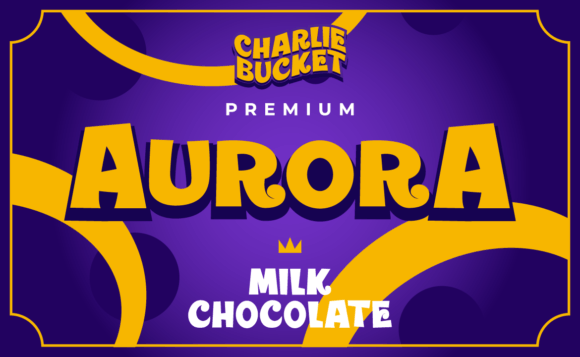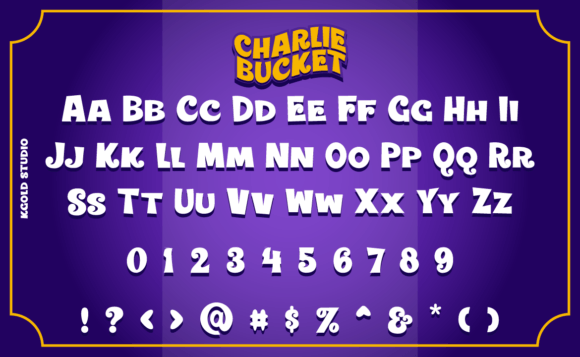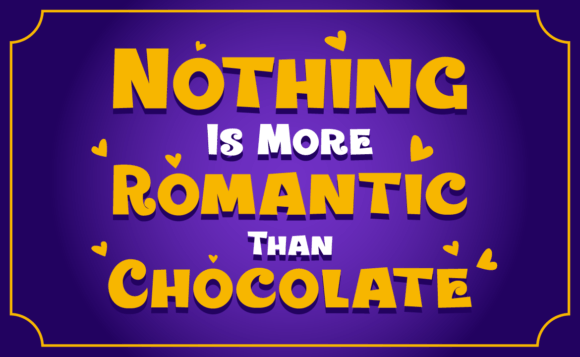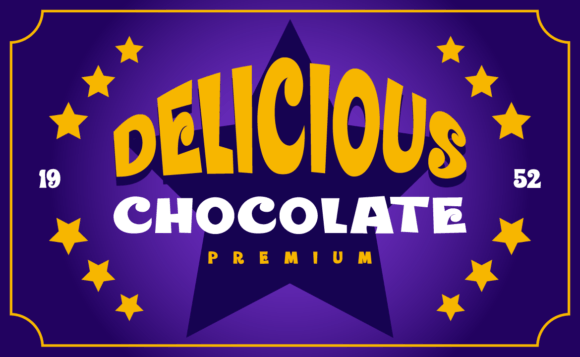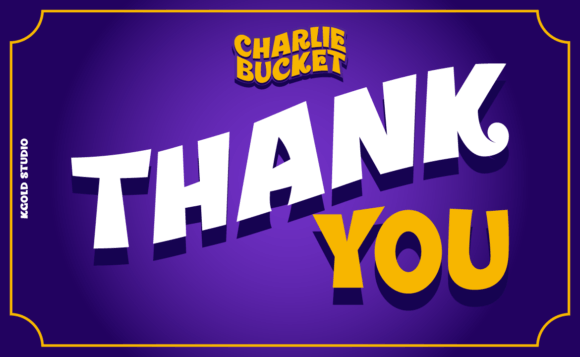
Introducing Charlie Bucket Font: The Playful and Fun Display Font
Are you tired of using the same old fonts in your designs? Look no further! Charlie Bucket Font is a playful and fun display font that is sure to brighten up each of your creations. With its friendly and cute style, this font is suitable for a wide variety of designs, making it a must-have for designers and crafters alike.
What Makes Charlie Bucket Font Special?
Charlie Bucket Font is a unique and charming font that stands out from the rest. Its playful and fun style is perfect for designs that require a touch of whimsy and personality. The font’s friendly and cute aesthetic makes it suitable for a wide range of projects, from children’s books and educational materials to branding and advertising.
Key Features of Charlie Bucket Font
• Playful and Fun Style: Charlie Bucket Font has a playful and fun style that is sure to capture the attention of your audience.
• Friendly and Cute Aesthetic: The font’s friendly and cute aesthetic makes it perfect for designs that require a touch of warmth and approachability.
• Suitable for a Wide Range of Designs: Charlie Bucket Font is versatile and can be used in a variety of designs, from children’s books to branding and advertising.
• Easy to Read: The font is easy to read, making it perfect for body text and headlines.
Uses of Charlie Bucket Font
Charlie Bucket Font is a versatile font that can be used in a variety of designs, including:
• Children’s Books and Educational Materials: The font’s playful and fun style makes it perfect for children’s books and educational materials.
• Branding and Advertising: Charlie Bucket Font can be used in branding and advertising to add a touch of personality and whimsy to your campaigns.
• Signage and Posters: The font’s friendly and cute aesthetic makes it perfect for signage and posters.
• Digital Media: Charlie Bucket Font can be used in digital media, including social media graphics, videos, and websites.
Tips for Using Charlie Bucket Font
Here are some tips for using Charlie Bucket Font in your designs:
• Use it in Headlines and Titles: Charlie Bucket Font is perfect for headlines and titles, where its playful and fun style can really shine.
• Pair it with Other Fonts: Charlie Bucket Font can be paired with other fonts to create a unique and interesting contrast.
• Experiment with Different Sizes and Colors: The font’s friendly and cute aesthetic makes it perfect for experimenting with different sizes and colors.
In conclusion, Charlie Bucket Font is a playful and fun display font that is sure to brighten up each of your creations. With its friendly and cute style, this font is suitable for a wide variety of designs, making it a must-have for designers and crafters alike. Whether you’re working on a children’s book, a branding campaign, or a digital project, Charlie Bucket Font is a great choice.